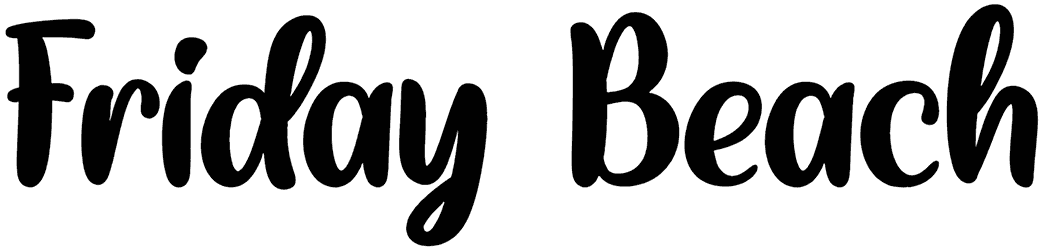
Friday Beach Font
Friday Beach can give a handwritten illusion to your words, which makes your design a nice vision. This beach font has a soft and curly character style, made with a marker effect, and it will convey a summery and lovely look to your reader. You can use it for movie and book titles, show and play posters and flyers, shop signs, and product packaging.